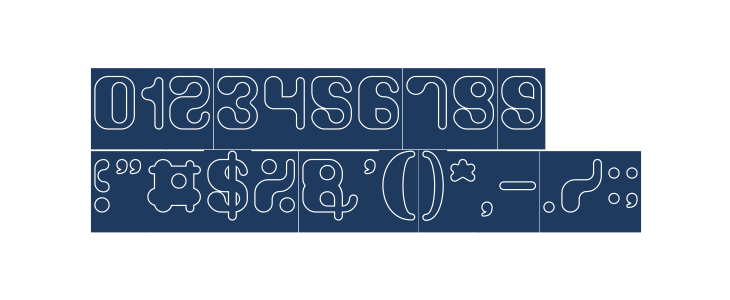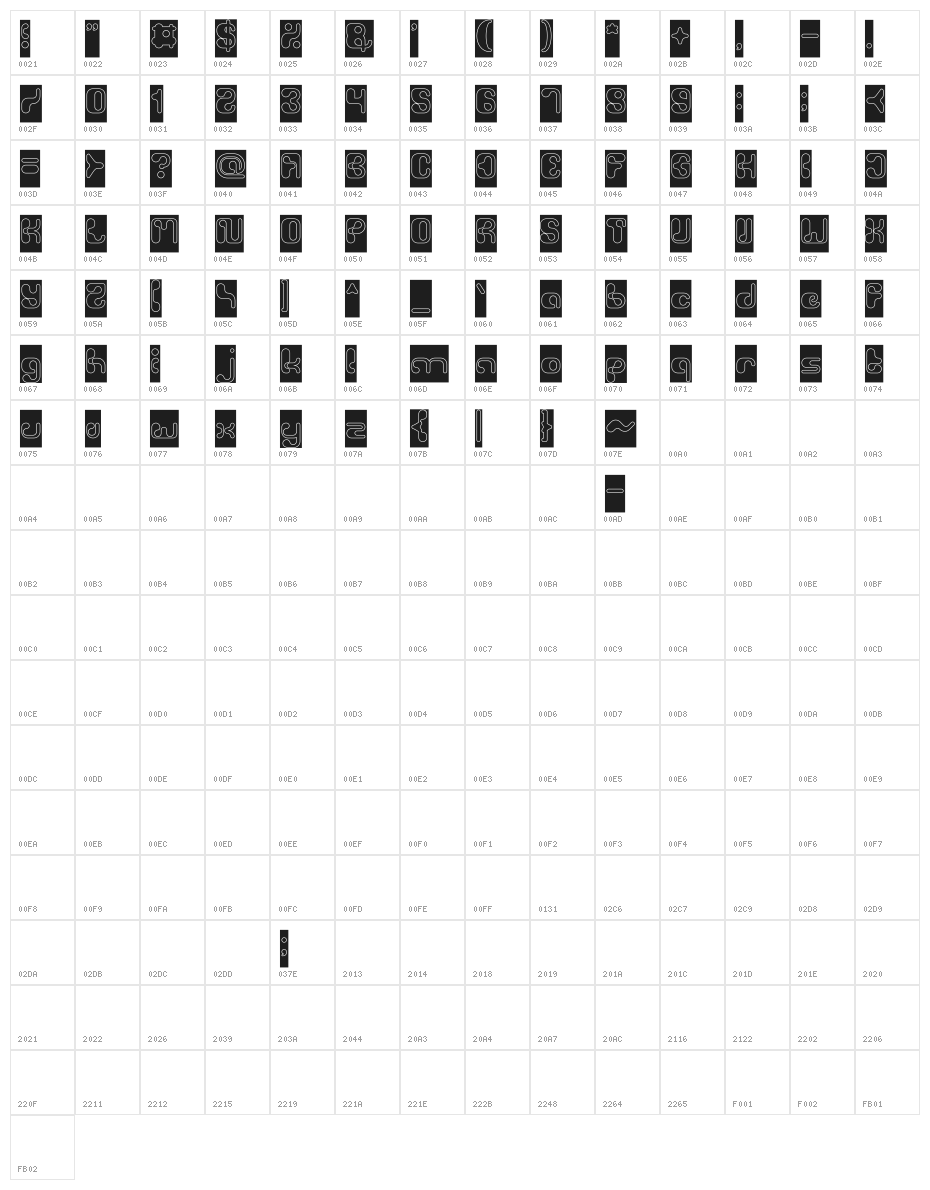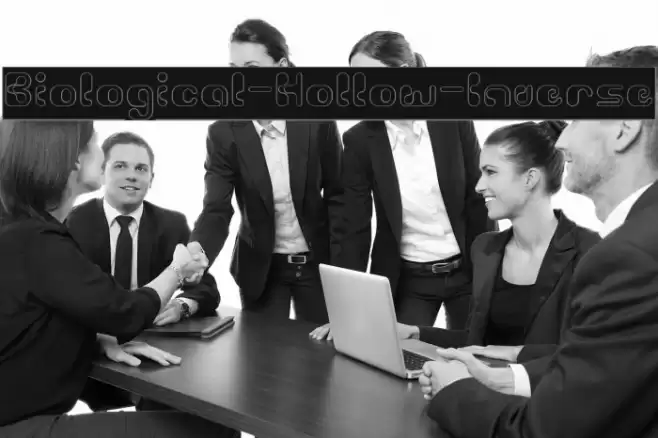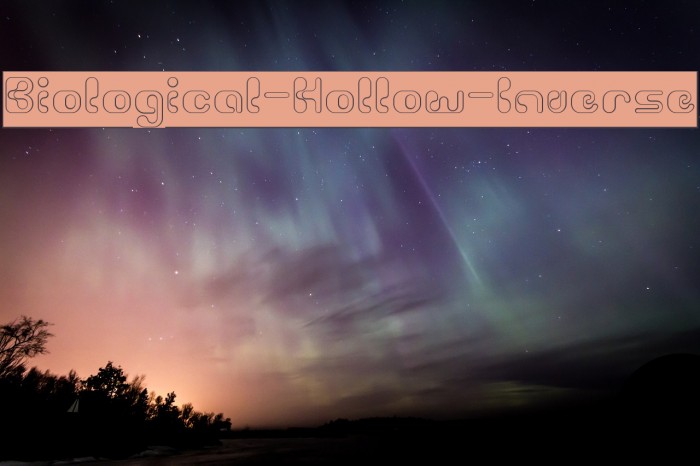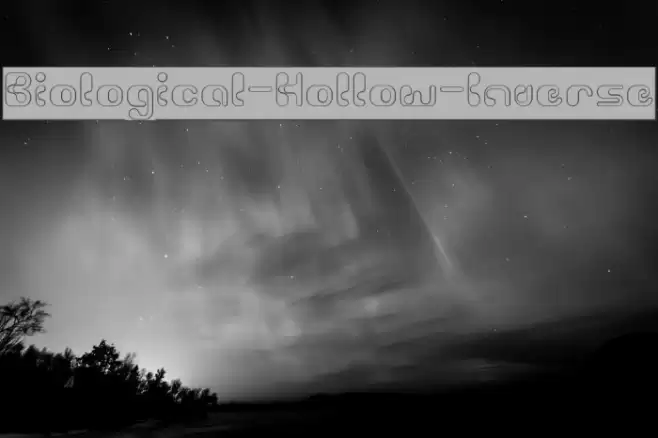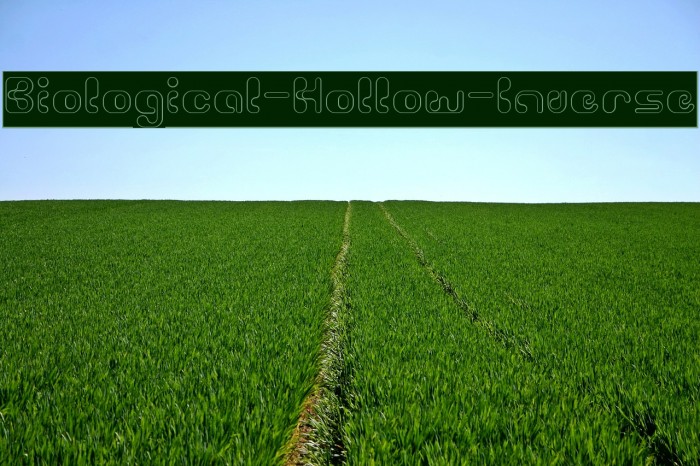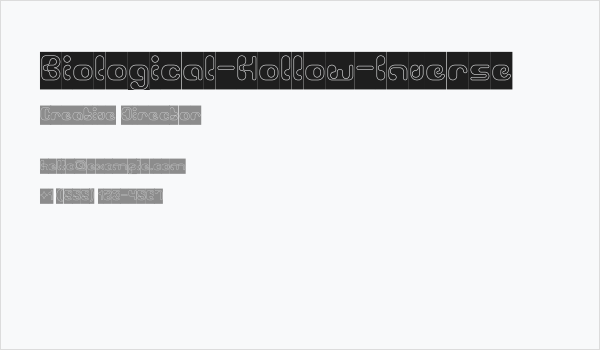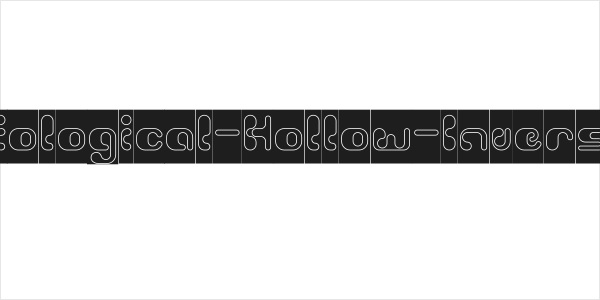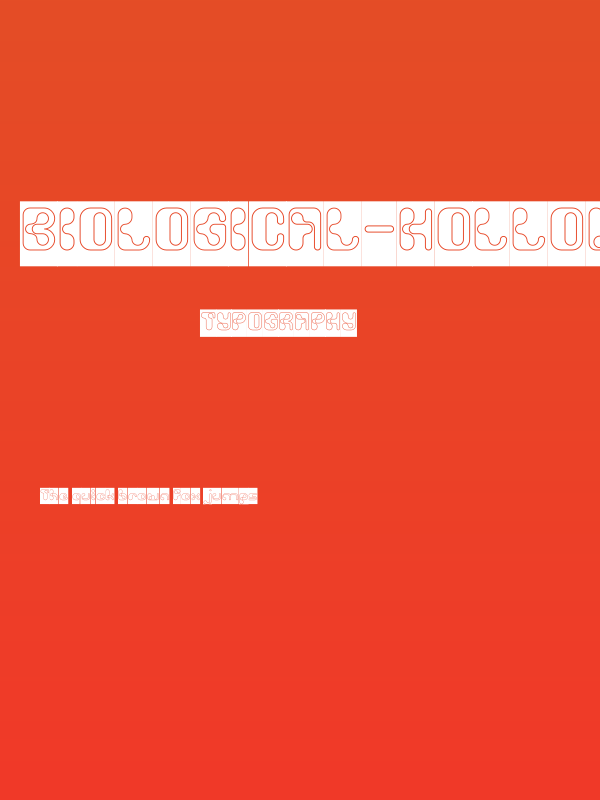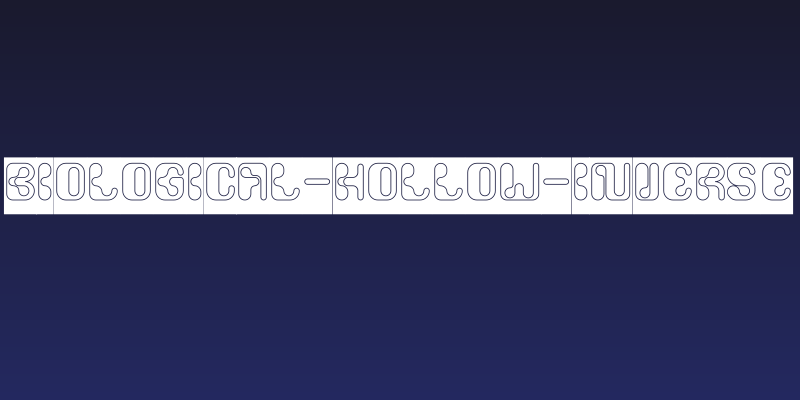
Biological-Hollow-Inverse Font
Biological-Hollow-Inverse Description
This font features a unique hollow design with an inverse style, where the characters are outlined with a continuous line, creating a futuristic and organic appearance. The letters are rounded and smooth, giving a sense of fluidity and movement. The uppercase and lowercase letters maintain a consistent style, with the lowercase being slightly more compact. Numbers and special characters follow the same design principles, ensuring uniformity across the set. The font's playful and modern aesthetic makes it stand out, ideal for creative and innovative projects. Its distinct look can capture attention and convey a sense of modernity and creativity.
| Proposed Projects | Ideal for futuristic branding, tech-related designs, creative posters, and innovative product packaging. |